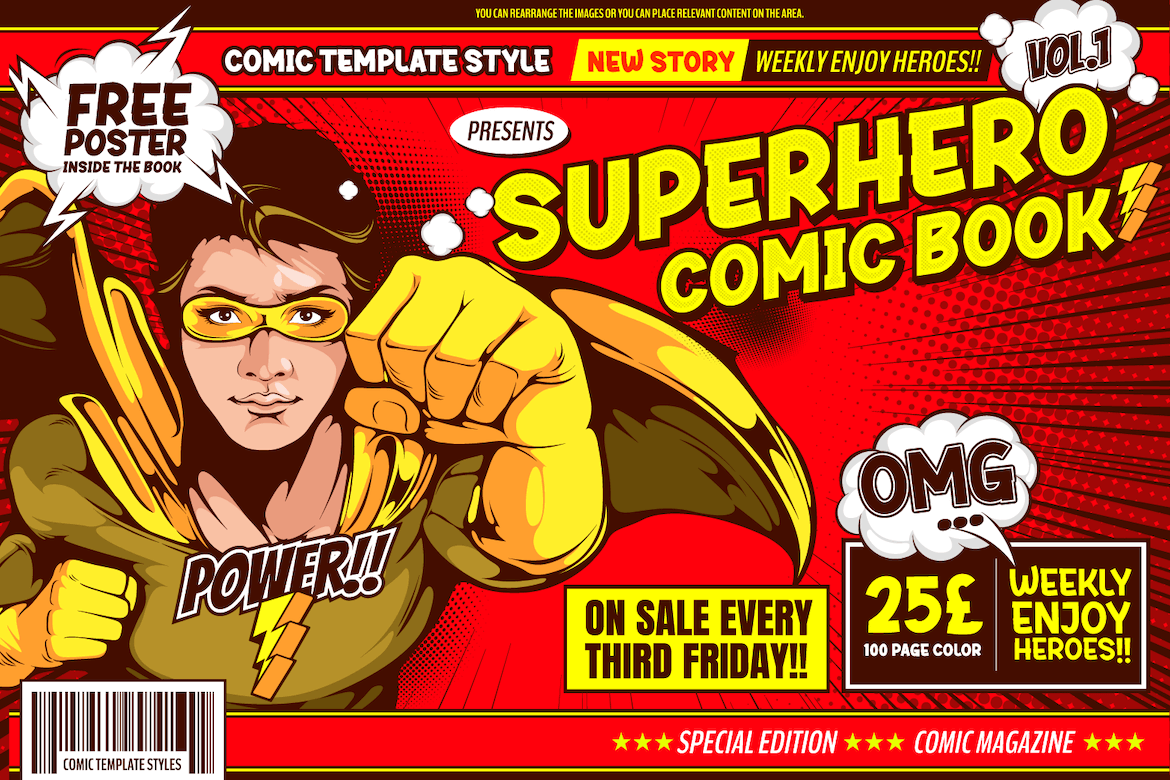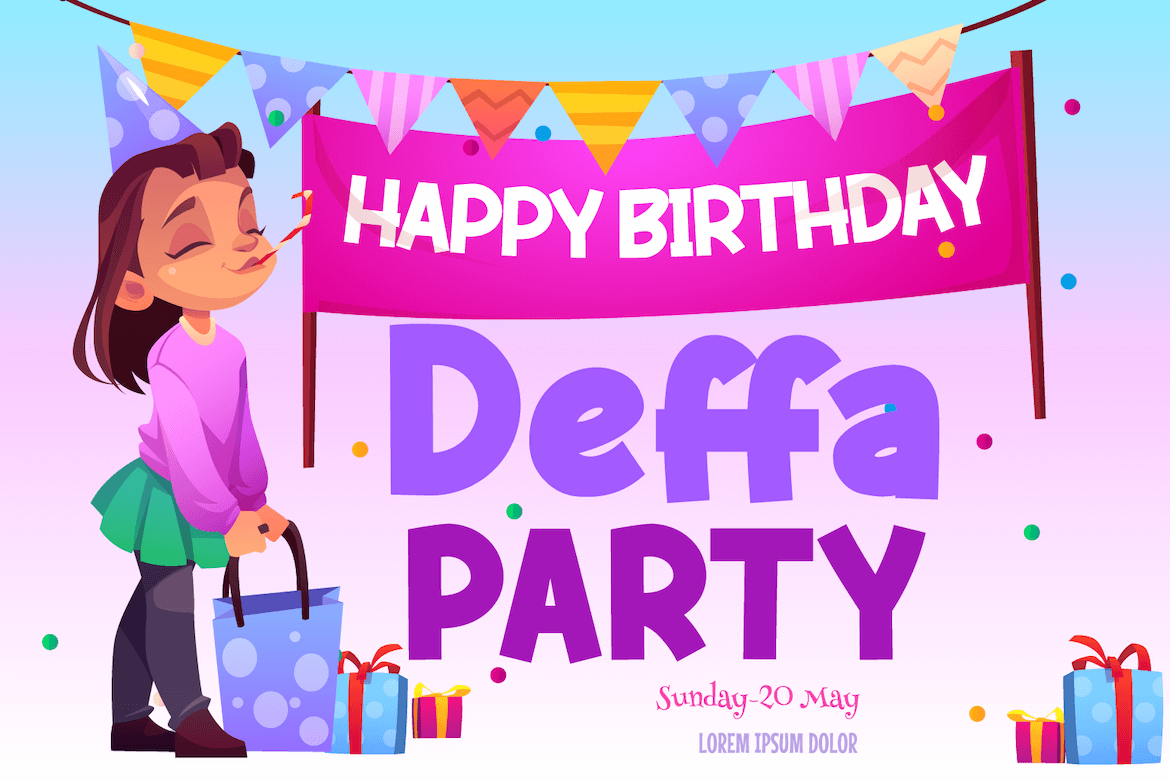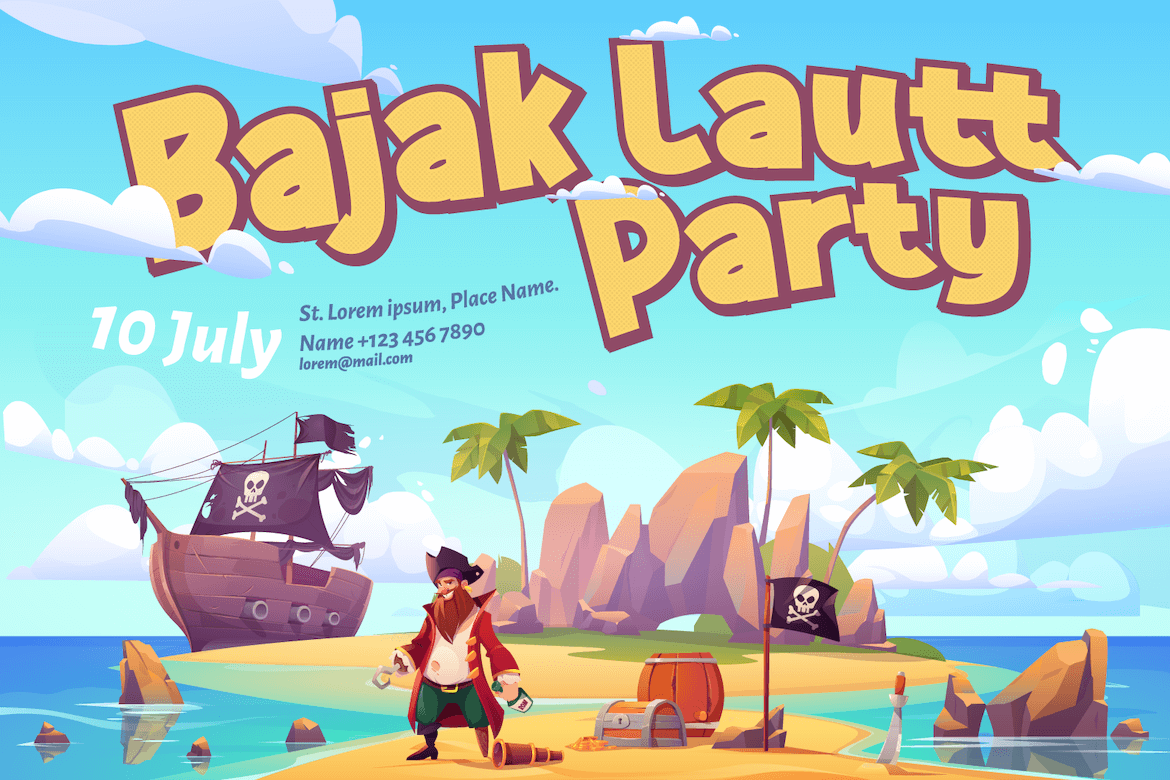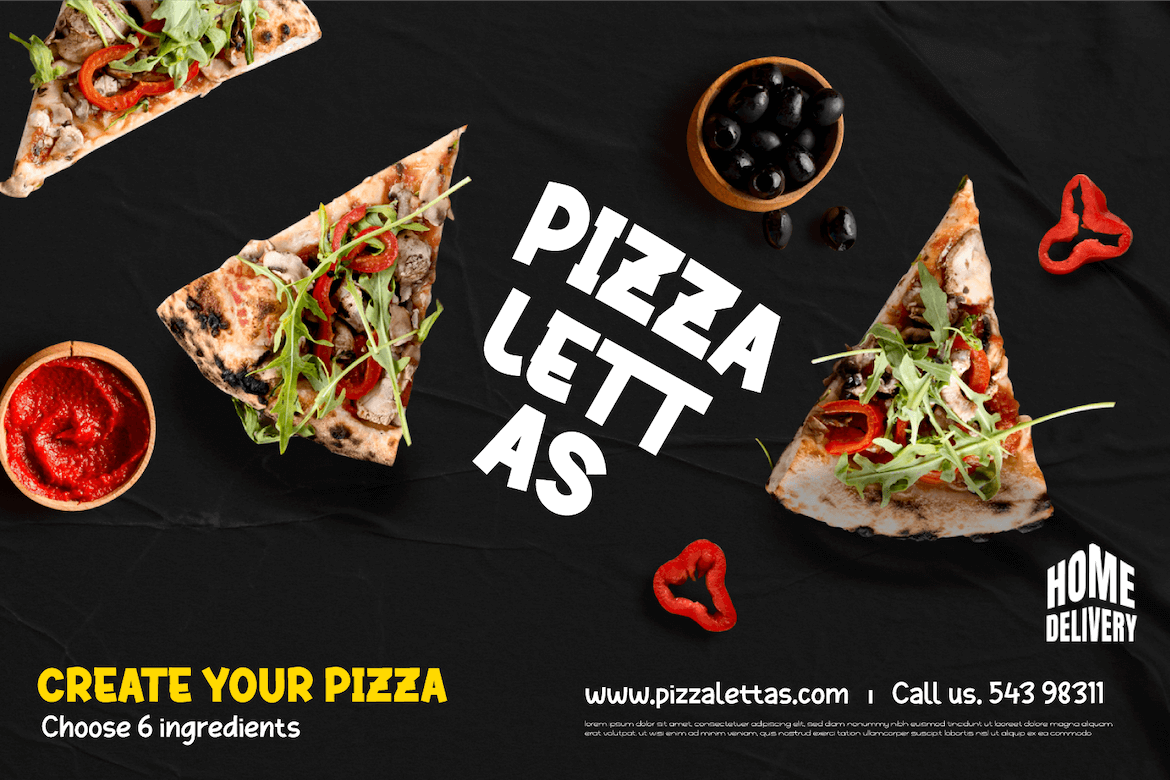
Gaffuk Font
Gaffuk Display Font
This is a cool, thick lettered and modern display font. A bit quirky and unique, this font will instantly make your designs stand out.